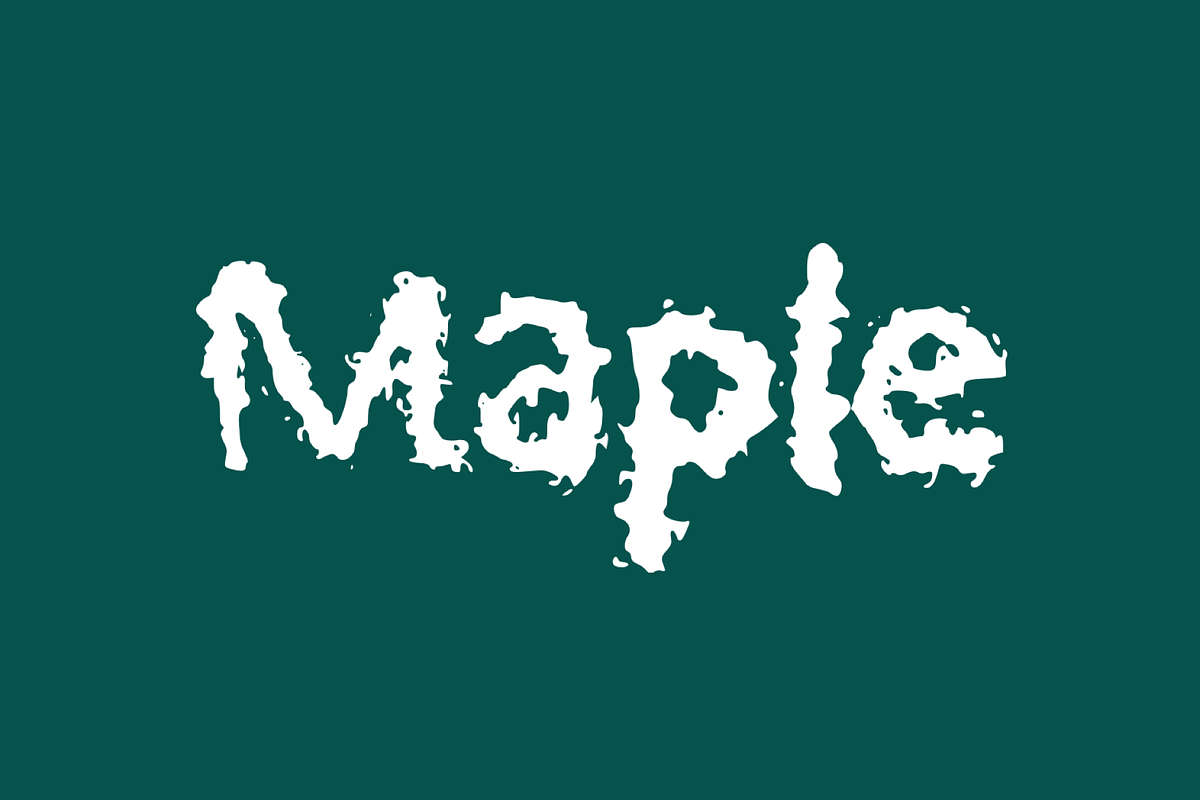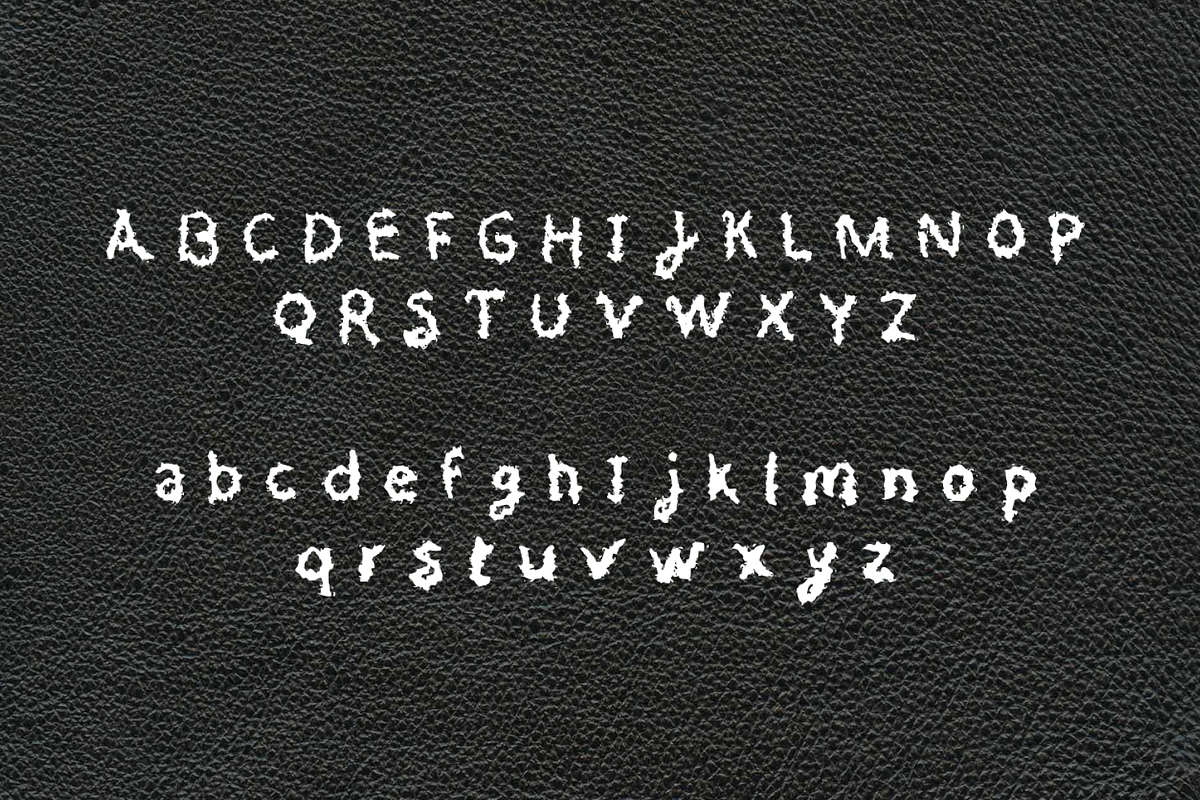
Maple Handwritten Font
Maple is a handwritten font. Ideal for logos, T-shirt , header, poster, merchandise.
Maple Handwritten Font by Mila Visuals fits naturally into Branding, posters, packaging, typography.